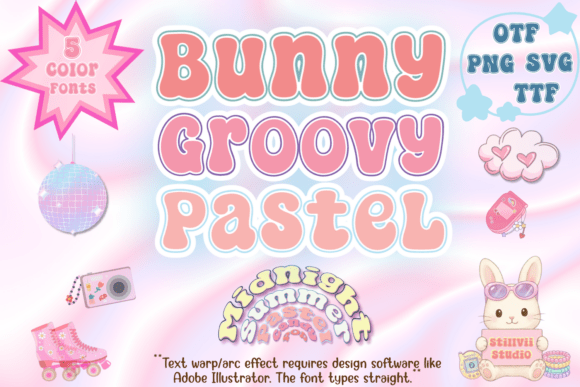
Brighten Up Your Designs with Bunny Groovy Pastel Font
Have you ever felt the rush of creative excitement when you stumble upon the perfect font for your next project? For me, it was the moment I discovered a vibrant pastel color palette that screamed “Spring vibes” and instantly made me want to create something magical. That’s exactly what you’ll get with the Bunny Groovy Pastel Font – a collection that embodies the ultimate Y2K and Spring aesthetic.
Whether you’re a seasoned designer or a crafty enthusiast, this font bundle is a game-changer. With its high-quality chubby color bubble fonts, you’ll be able to add a touch of whimsy to your designs, from sublimation prints to Easter crafts and classroom decor. What’s more, this bundle includes five distinct pastel color palettes, ensuring you’ll never run out of inspiration.
Bunny Groovy Pastel Font Key Features
- Font Family: Bunny Groovy Pastel, a unique and playful font designed to evoke a groovy vibe.
- Unique Characteristics: Features a distinctive pastel color palette, with subtle texture and gradient effects, adding a touch of whimsy and fun to designs.
Bunny Groovy Pastel Font Review
Overall, I think the Bunny Groovy Pastel Font is a fun and unique addition to any design project. Here are some things that work well:
- ✨ The font’s pastel color palette is on-trend and adds a touch of whimsy to designs.
- ✨ The font is highly customizable, allowing designers to adjust the color, size, and style to fit their needs.
- ✨ The font is highly legible, even at smaller sizes, making it a great choice for body text.
- ⚠️ The font may not be suitable for formal or professional designs, as it’s a bit too playful and whimsical.
- ⚠️ The font’s pastel colors may not be accessible for users with visual impairments, as they can be difficult to read against certain backgrounds.
Overall, I think the Bunny Groovy Pastel Font is a great choice for designers looking to add some fun and personality to their projects. While it may have some limitations, it’s a unique and highly customizable font that’s sure to stand out.
To get the most out of the Bunny Groovy Pastel Font, try pairing it with pastel-colored backgrounds and complementary fonts. You can also experiment with different font sizes and styles to create a unique and eye-catching design.
The Bunny Groovy Pastel Font is perfect for designing:
– Blog posts and articles
– Party invitations and decorations
– Branding and marketing materials
Alternative Fonts to Bunny Groovy Pastel Font
Great Vibes is a modern, cursive font that exudes a sense of relaxation and happiness. It is ideal for use in titles, headings, and quotes where a playful, carefree vibe is desired.
Compared to Bunny Groovy Pastel Font, Great Vibes has a more refined and polished look, making it suitable for a wider range of designs. While Bunny Groovy Pastel Font is more whimsical and childlike, Great Vibes is more sophisticated and elegant.
Cream Soda is a fun, handwritten font that is reminiscent of classic comic book style. It is perfect for use in headings, titles, and posters where a playful, retro vibe is desired.
Compared to Bunny Groovy Pastel Font, Cream Soda has a more dynamic and energetic feel, making it ideal for designs that require a sense of excitement and playfulness.
Lobster is a bold, cursive font that is perfect for use in titles, headings, and quotes where a sense of drama and flair is desired.